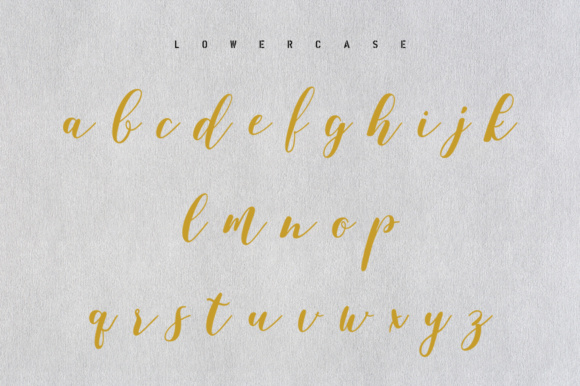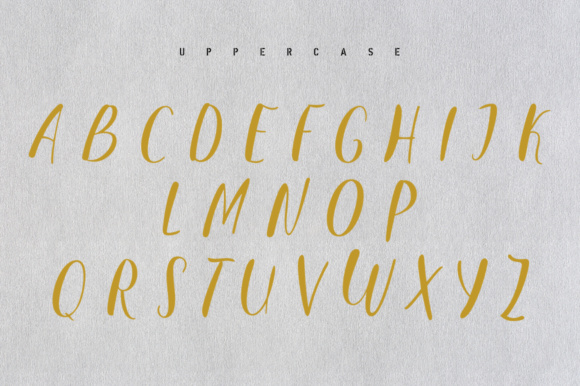
Malicute Script Font
db-ku.com - Script & Handwritten -- Malicute Script is a modern calligraphy font with smooth lines and a varying baseline. It will give your design a classic and elegant touch. Malicute can be used for various purposes such as: headings, signatures, logos, wedding invitations, and much more!